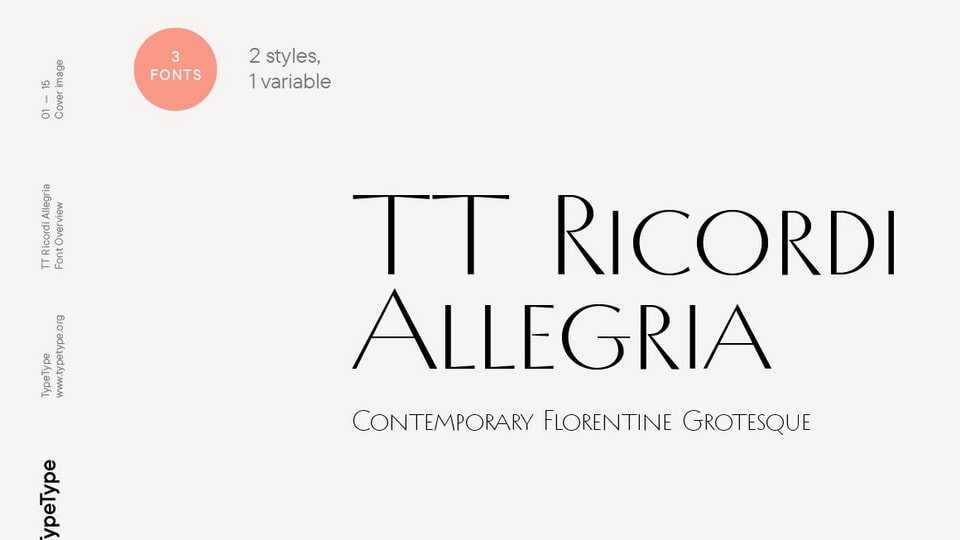
Download TT Ricordi Allegria font, a sleek and intelligent contemporary Florentine grotesque inspired by the half-erased lettering in Basilica di Santa Croce, Florence. TT Ricordi Allegria reflects in its graphics the transitional stage between the classic serif with varying proportions, gravitating towards the Roman capital type, and the Florentine sans serif.
Designer: TypeType Team